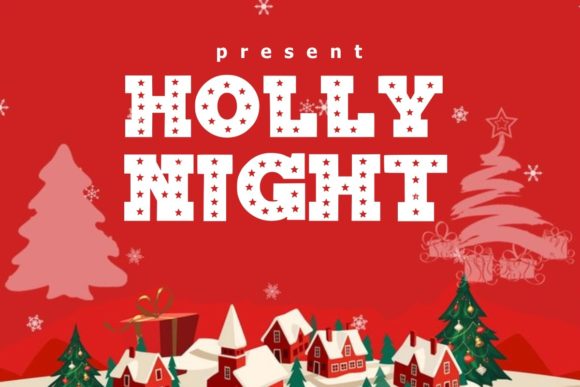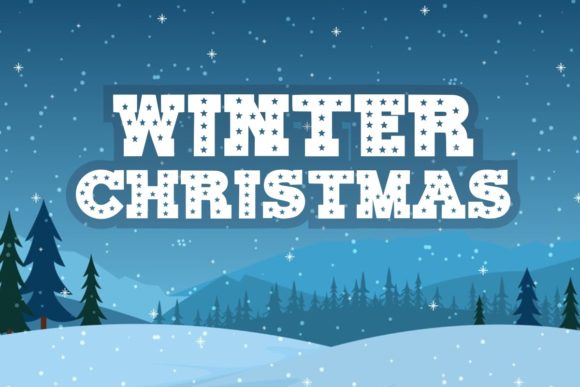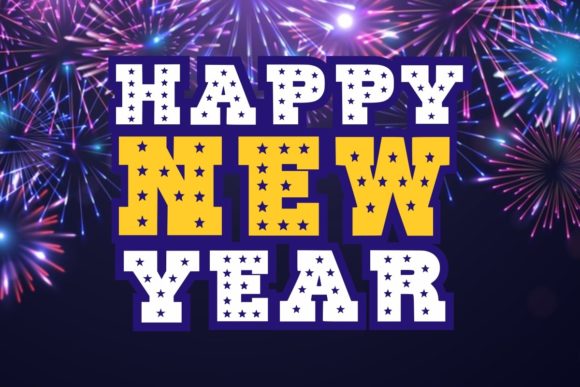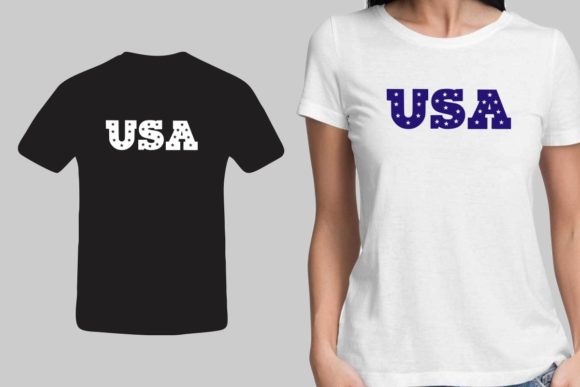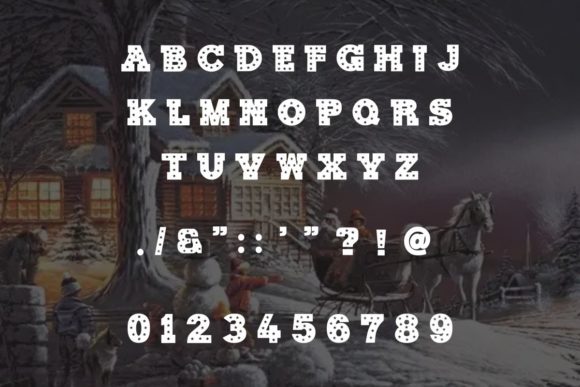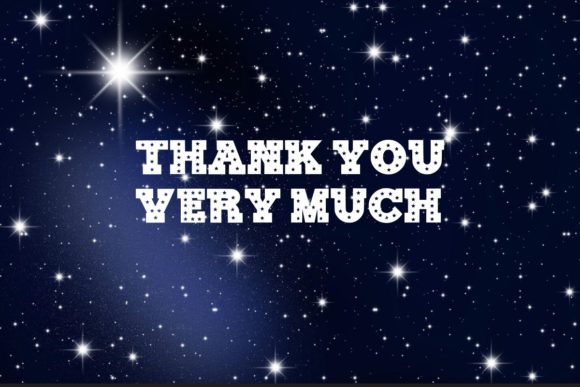
Introducing the Magical Christmas Star Font
Are you looking for a font that captures the essence of the holiday season? Look no further than the Christmas Star Font! This fun and festive decorative font is perfect for any winter and holiday branding project, product packaging, invitation, quote, t-shirt, label, poster, and logo that you wish to develop.
What Makes Christmas Star Font So Special?
The Christmas Star Font is a unique and eye-catching font that is sure to add a touch of holiday magic to your designs. Its playful and whimsical style makes it perfect for a variety of applications, from festive holiday cards to fun and quirky product packaging.
One of the key features of the Christmas Star Font is its versatility. It can be used in a variety of contexts, from formal to informal, and can be easily paired with other fonts to create a unique and cohesive look.
Whether you’re a designer or a crafter, the Christmas Star Font is a great addition to your toolkit. Designers can use it to create stunning holiday-themed branding projects, while crafters can use it to add a personal touch to their handmade gifts and decorations.
The font is also perfect for anyone who loves to create holiday-themed crafts, such as making holiday cards, gift tags, and decorations. With the Christmas Star Font, you can add a professional and polished touch to your creations.
Key Features of Christmas Star Font
- Fun and festive design: The Christmas Star Font features a playful and whimsical design that is sure to add a touch of holiday magic to your designs.
- Versatile: The font can be used in a variety of contexts, from formal to informal, and can be easily paired with other fonts to create a unique and cohesive look.
- Scalable: The font is scalable, making it perfect for use in a variety of applications, from small gift tags to large billboards.
Ideas for Using Christmas Star Font
The Christmas Star Font is a versatile font that can be used in a variety of applications. Here are a few ideas to get you started:
- Holiday branding projects: Use the Christmas Star Font to create festive and eye-catching branding projects, such as logos, business cards, and letterheads.
- Product packaging: Add a touch of holiday magic to your product packaging with the Christmas Star Font. It’s perfect for holiday-themed products, such as gift boxes, labels, and tags.
- Invitations and greeting cards: Use the Christmas Star Font to create festive and fun holiday invitations and greeting cards.
- T-shirts and apparel: Add a touch of holiday flair to your t-shirts and apparel with the Christmas Star Font.
- Labels and posters: Use the Christmas Star Font to create eye-catching labels and posters for your holiday-themed products and promotions.
Tips for Getting the Most Out of Christmas Star Font
Here are a few tips for getting the most out of the Christmas Star Font:
- Experiment with different colors: The Christmas Star Font looks great in a variety of colors, so don’t be afraid to experiment and find the perfect color scheme for your design.
- Pair it with other fonts: The Christmas Star Font pairs well with a variety of other fonts, so try pairing it with some of your favorite fonts to create a unique and cohesive look.
- Use it in combination with other design elements: The Christmas Star Font looks great when used in combination with other design elements, such as graphics and images.
| Font Name | Christmas Star Font |
The Christmas Star Font is a fun and festive decorative font that is perfect for any winter and holiday branding project, product packaging, invitation, quote, t-shirt, label, poster, and logo that you wish to develop. Its playful and whimsical style makes it perfect for a variety of applications, from festive holiday cards to fun and quirky product packaging.